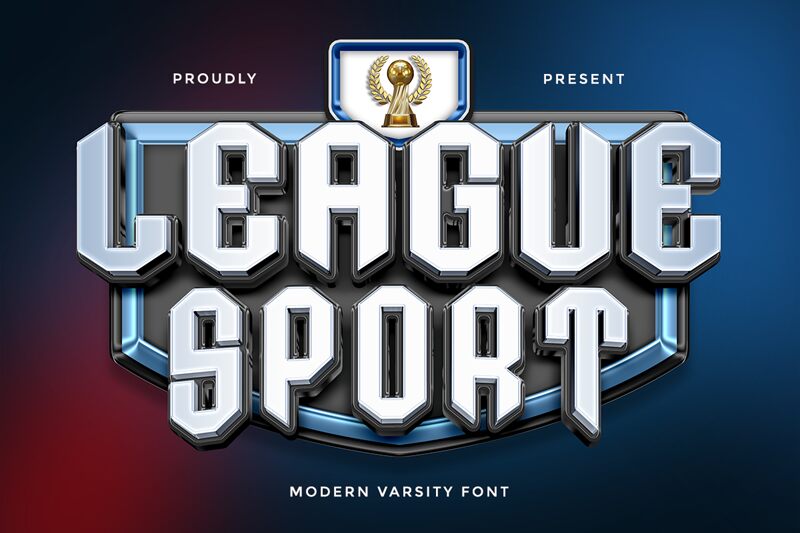
League Sport font by Joiro Hatgaya is an angular and geometric techno display design. Its modern appearance makes it suitable for all sorts of industrial, impactful, and futuristic uses. Although geometric, its lines are mainly straight with very few curves. It is a condensed font that can fit in narrow spaces where needed.
Use this font within sports logos, merchandise, storefronts, or online ads. Its name suits it perfectly as you use it almost universally within the sports field whether for team logos, posters/flyers/brochures or any of your sports-related designs that require maximum impact with a techno feel. Free to download and use today!